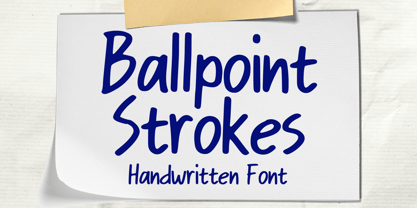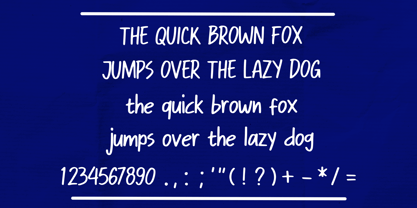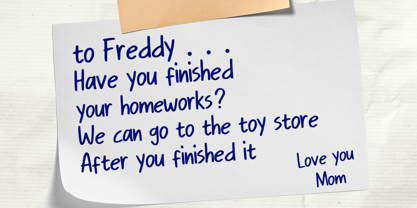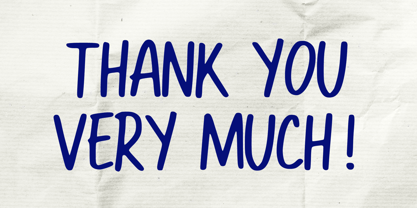
Ballpoint Strokes
by Mvmet
The Ballpoint Strokes Font Family was designed by Gabriel Valentinus and published by Mvmet. Ballpoint Strokes contains 1 styles. More about this family
Ballpoint Strokes is a playful and versatile pen font perfect for daily use. It enhances a variety of design projects, making them stand out. Ideal for stickers, t-shirt designs, eye-catching logos, magazine and book covers, comics, cartoon illustrations, and much more, this font brings a unique flair to your creative endeavors. With its charming style, Ballpoint Strokes adds a super cool touch to any design, ensuring your work captures attention and resonates with your audience.
Designers: Gabriel Valentinus
Foundry: Mvmet